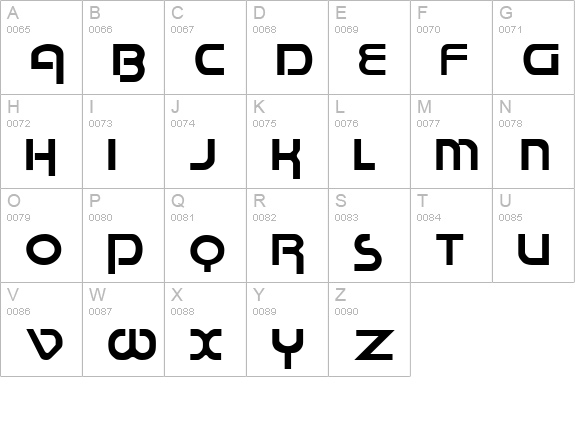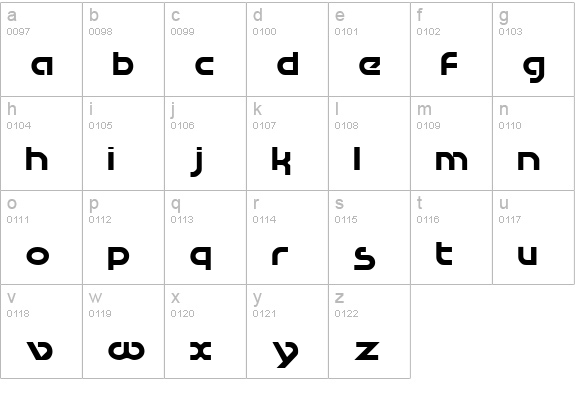
Cupertino Regular Font Details
Cupertino Regular is the standard, neutral variant in the Cupertino typeface family \xE2\x80\x94 well suited to general body text, paragraphs, and standard typographic work.